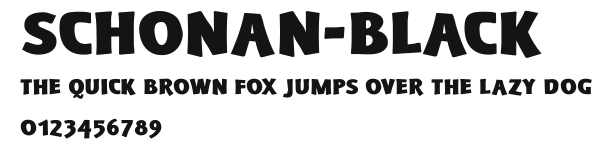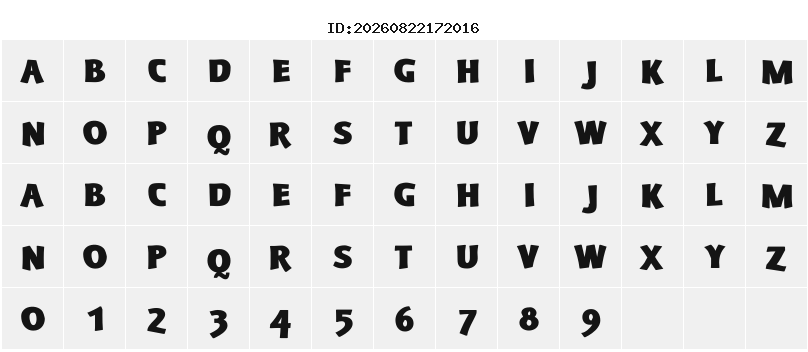
• Font Name: Schonan-Black
• Full Font Name: Schonan-Black
• Version: 1.0 2006-10-17
About Schonan-Black.ttf
Schonan-Black.ttf is a modern, elegant sans-serif font designed for ultimate readability and visual harmony. Perfect for branding, headlines, web design, and print materials.